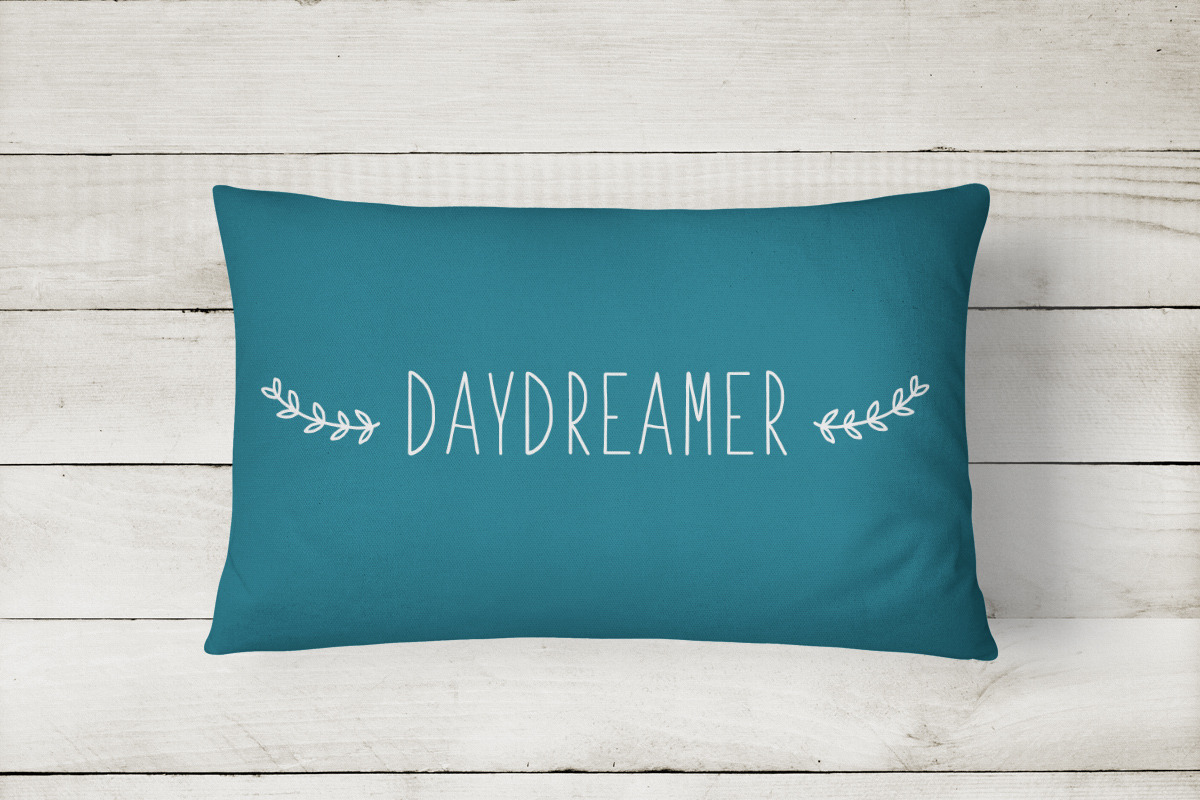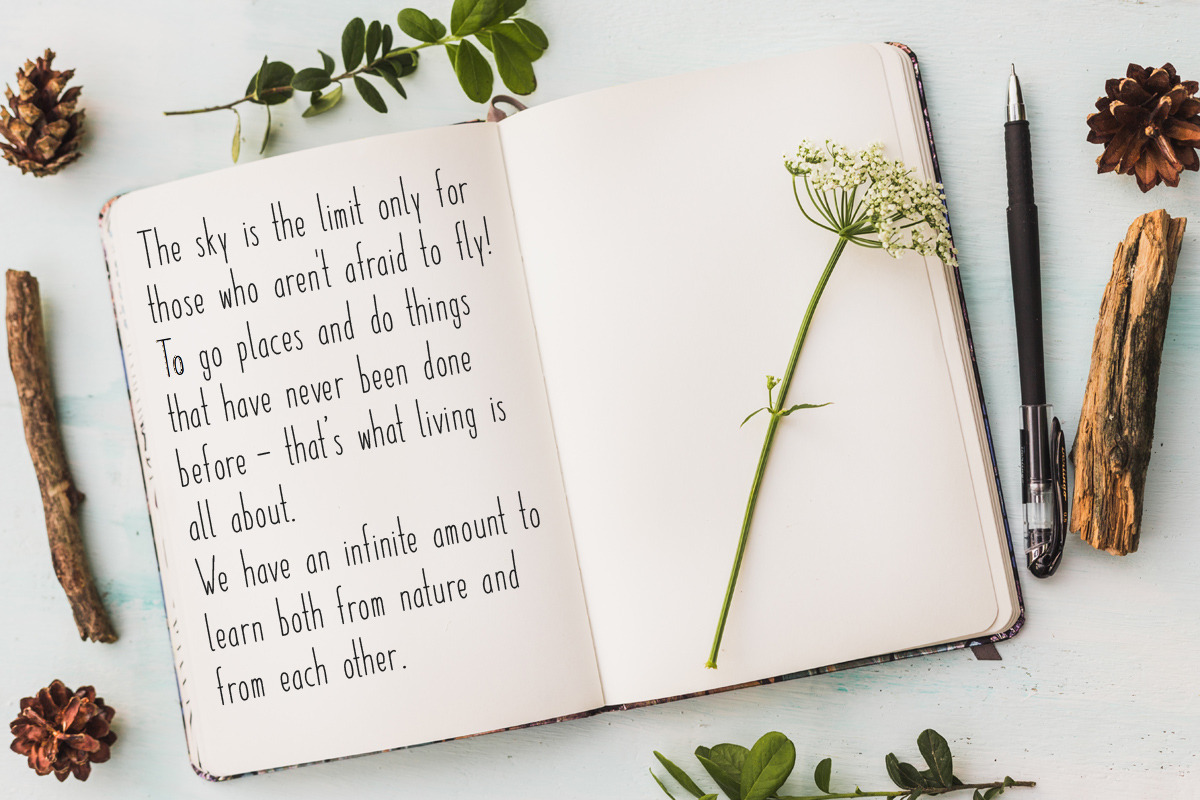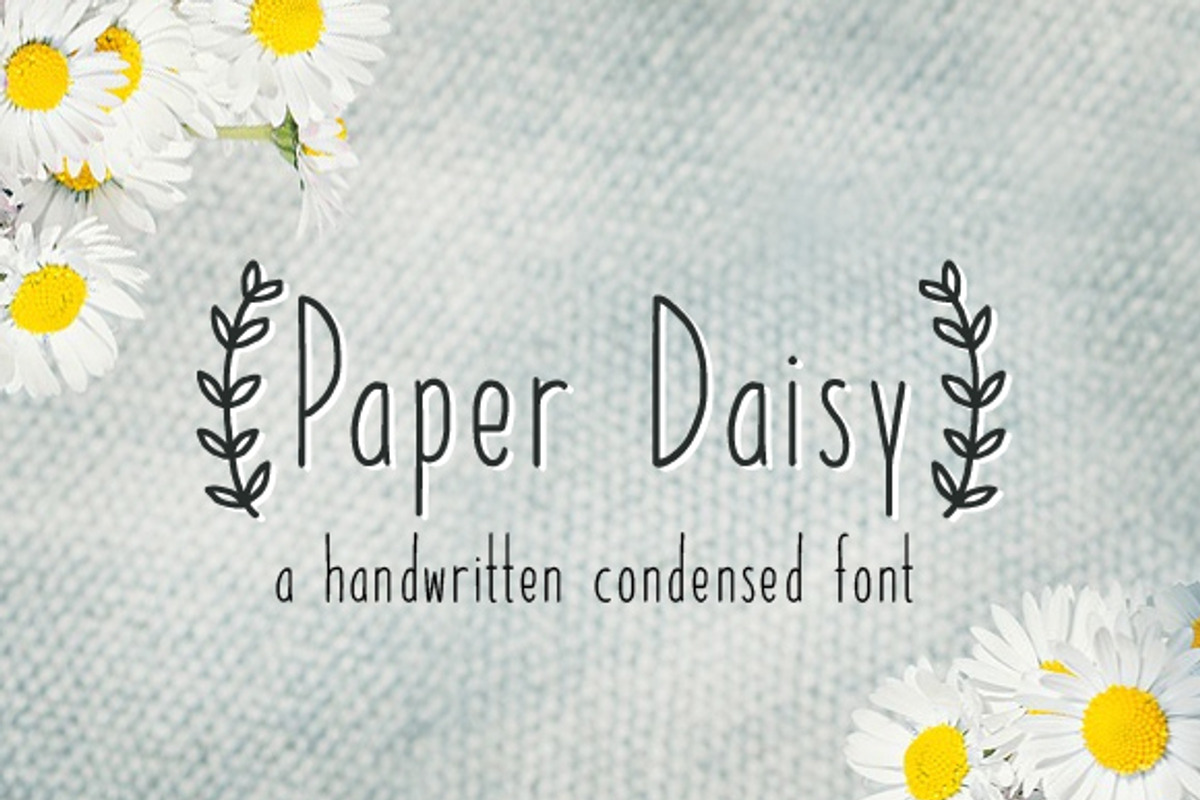
Paper Daisy Font
Paper Daisy Font by maja.mint is a font selected for branding, posters, packaging, typography.
Why Paper Daisy Font is worth a look
Paper Daisy Font by maja.mint fits naturally into Branding, posters, packaging, typography.